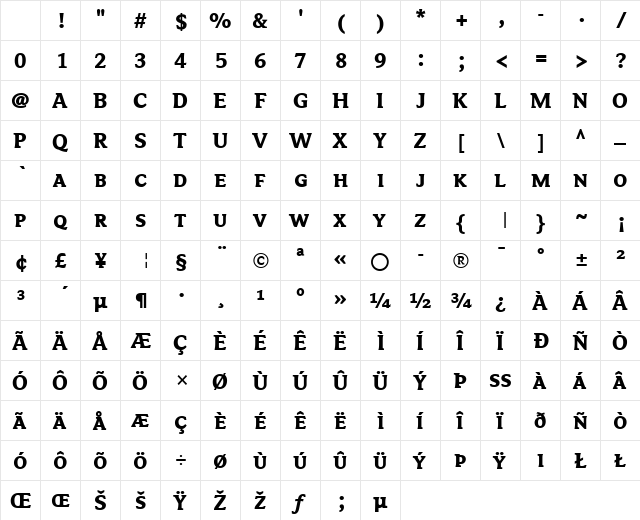
Complete Avance Bold glyph index. Displaying only characters natively supported by Avance Bold font.
Avance is a composed and adaptable typeface that performs quietly and consistently across a wide range of design contexts. Its bold stroke weight gives it real presence on the page.
Who designed the Avance Bold font?
This font was published by Evert Bloemsma, published by Fontshop International for the FontFont library. Check the technical specs section for copyright and designer details.